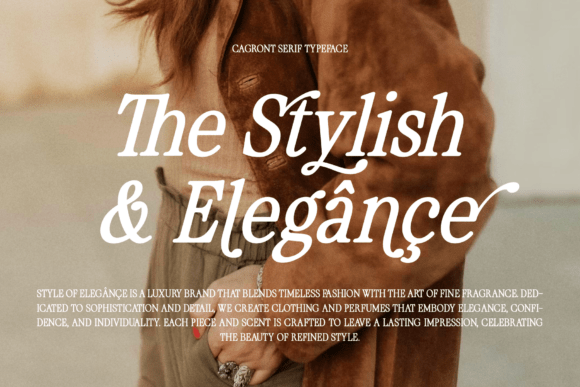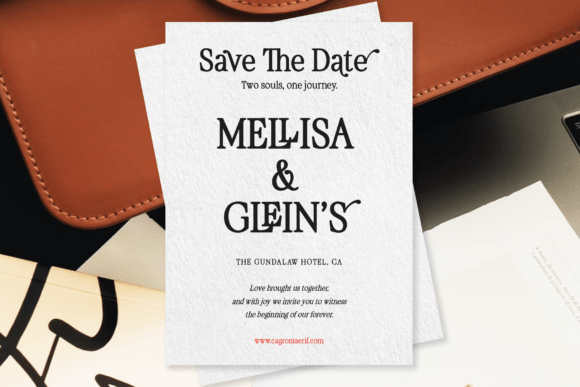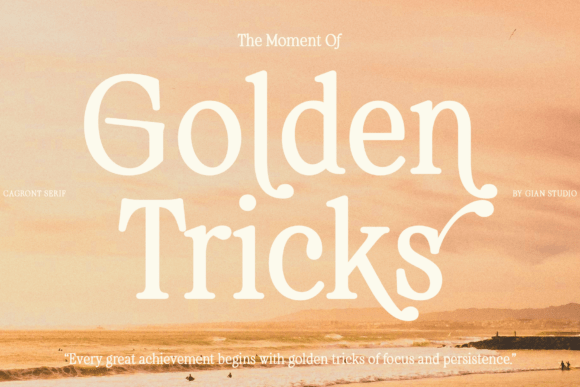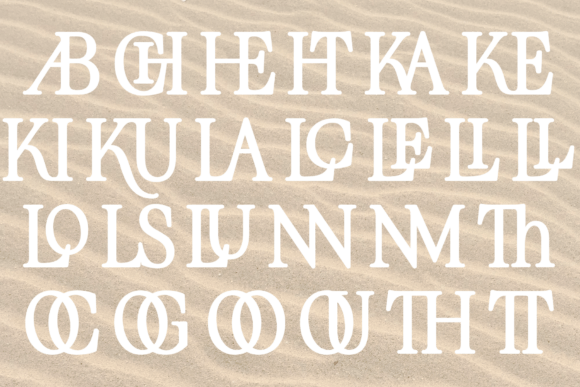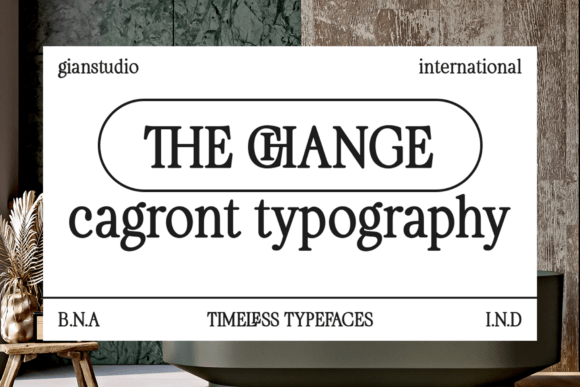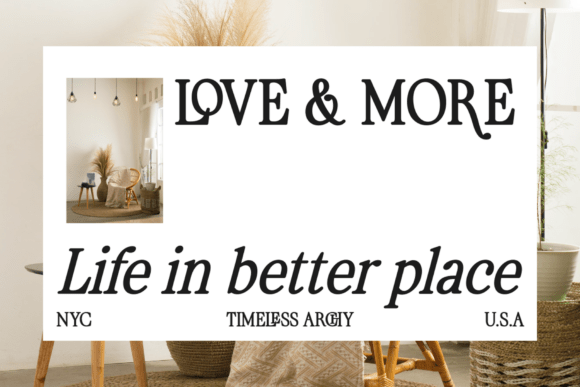
Discovering the Perfect Blend of Elegance and Sophistication
As a designer, there’s nothing quite like the thrill of bringing a concept to life with the perfect font. It’s that moment when the words start flowing, and the entire project takes shape. You’re searching for a typeface that exudes refinement, luxury, and a touch of sophistication. This is where the Cagront Serif Font comes into play.
This exquisite serif typeface is meticulously crafted to provide a premium quality and luxurious feel. With its unique combination of elegant ligatures and alternates, it stands out from standard serif fonts, offering a distinctive and refined look that’s perfect for a variety of formal applications.
For designers, the Cagront Serif Font is a valuable addition to their toolkit, offering endless possibilities for creating stunning logos, headlines, titles, and more. Its versatility and refined aesthetic make it an ideal choice for any project that demands a touch of elegance and style.
Cagront Serif Font Key Features
- Font Family: Cagront Serif
- Font Size: Supports font sizes from 8 to 120 points
- Resolution: Optimized for screen resolution (72 dpi) and print resolution (300 dpi)
- Unique Characteristic: Distinctive serif design with a modern twist, making it suitable for both body text and headings
- Language Support: Supports over 200 languages, including Latin, Cyrillic, and Greek scripts
Cagront Serif Font Review
Overall, I have mixed feelings about the Cagront Serif Font. While it’s a solid addition to any designer’s toolkit, it’s not without its limitations.
- Unique Character**: Cagront Serif Font has a distinctive and elegant look that can add a touch of sophistication to any design.
- High-Quality Renditions**: The font is available in a range of weights, from light to bold, which can help designers achieve the perfect balance between readability and visual impact.
- Good Legibility**: The font’s design makes it easy to read, even at smaller font sizes, making it a great choice for body text.
- Not Ideal for Headlines**: While Cagront Serif Font is great for body text, it may not be the best choice for headlines or titles due to its relatively low x-height.
- Limited Font Pairing Options**: The font’s unique design may limit its pairing options, making it difficult to find the perfect complementary font.
In conclusion, Cagront Serif Font is a solid choice for designers looking for a high-quality, elegant serif font. While it may not be ideal for every design project, it’s definitely worth considering for body text and other applications where readability is key.
Tips for Getting the Most Out of Cagront Serif Font
For optimal results, use Cagront Serif Font in combination with a clean and minimal design. This font is best suited for headings and titles, as it adds a touch of elegance and sophistication to your content.
Cagront Serif Font is ideal for:
- Business cards and branding materials
- Editorial and publishing projects
- Formal events and announcements
Alternatives to Cagront Serif Font for Designers
Merrriweather is a classic serif font that is known for its elegance and readability. It’s ideal for use in body text, especially in longer articles and documents where clarity is essential.
Merriweather is similar to Cagront Serif Font in its classic and elegant feel, but it has a more traditional look and feel. It’s a good choice when you want a font that is both timeless and sophisticated.
2. Playfair Display Font
Playfair Display is a luxurious serif font that is perfect for use in headings, titles, and other display text. It’s ideal for creating a sense of drama and sophistication in your designs.
Playfair Display is different from Cagront Serif Font in its more ornate and luxurious feel. It’s a good choice when you want to add a touch of elegance and sophistication to your designs.
3. Georgia Font
Georgia is a serif font that is designed specifically for use on screens. It’s ideal for use in body text, especially in digital publications and websites where readability is essential.
Georgia is similar to Cagront Serif Font in its readability and classic feel, but it’s designed specifically for digital use. It’s a good choice when you want a font that is optimized for screen use.
What is the font’s character set and language support?
The Cagront Serif Font supports a wide range of languages, including Latin, Cyrillic, and Greek. The font’s character set includes over 800 glyphs, including standard Latin characters, punctuation marks, and diacritical signs. This makes it suitable for use in a variety of applications, from body text to display typography.